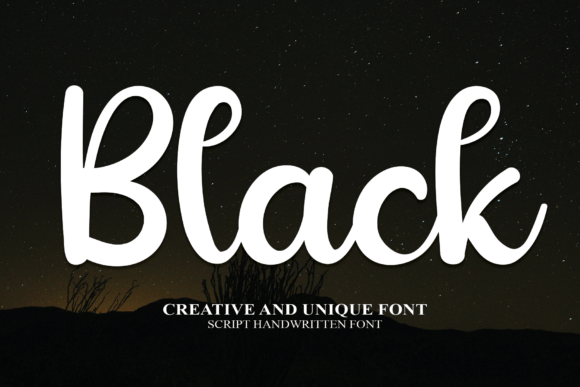
The Sweet Charm of Black Font: A Designer’s Delight
I’ll never forget the time I was working on a wedding invitation project, and my client asked for a font that was both elegant and playful. I scoured the internet, tried out countless fonts, but nothing seemed quite right. That was until I stumbled upon Black Font. This sweet and friendly handwritten font won my heart, and I’ve been hooked ever since! 💕
An Honest Review of Black Font
- ✨ Cute and Fun: Black Font is perfect for adding a touch of whimsy to any design project.
- ✅ Elegant yet Playful: This font strikes the perfect balance between sophistication and playfulness, making it ideal for wedding invitations, cards, and more.
- 💖 Handwritten Charm: The font’s handwritten feel adds a personal touch to any design, making it perfect for projects that require a bit of personality.
While Black Font is an amazing font, there are a few things to keep in mind: 🤔
- ⚠️ Limited Use in Small Sizes: Due to its handwritten nature, Black Font can be a bit tricky to read in small sizes. It’s best used in larger sizes (20pt+).
- ⚠️ No Oblique or Italic Styles: Black Font only comes in a single style, which might limit its versatility in certain design projects.
The Designer Inspiration Behind Black Font
Black Font was designed with the intention of creating a friendly and approachable handwritten font. The designer wanted to create a font that would add a personal touch to designs, making them feel more relatable and engaging.
Q: What type of designs is Black Font best suited for?
A: Black Font is perfect for designs that require a touch of whimsy and playfulness, such as wedding invitations, cards, and posters.
Q: Is Black Font available in different languages?
A: Black Font may not support all languages, but it does include a range of characters and glyphs to help you create beautiful text.